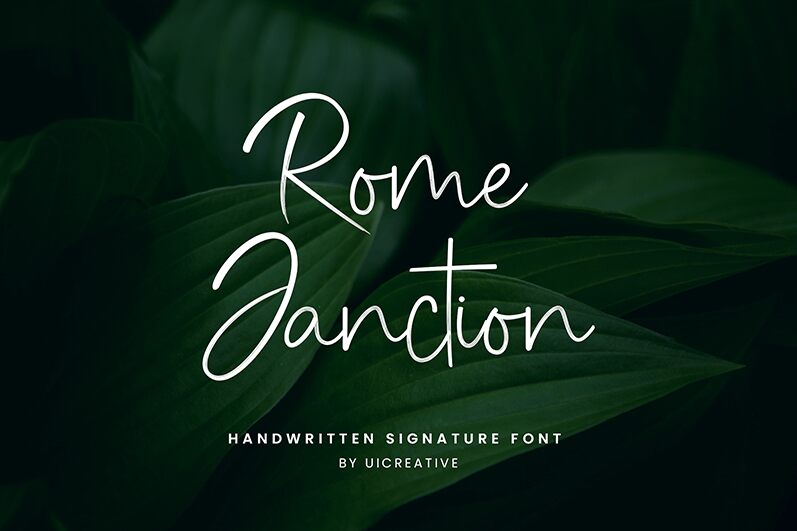
RomeJanction
RomeJanction by UI Creative captivates with its effortlessly elegant, handwritten signature style. Its organic strokes exude a personalized touch, highlighting a harmonious balance between refined sophistication and warm, inviting aesthetics. The fluidity and grace of each character make this font particularly versatile.
Perfect for branding projects, RomeJanction shines in applications such as logos, wedding invitations, and upscale event signage. Its understated charm also enhances social media graphics, blog headers, and personalized stationery.
By combining contemporary flair with timeless script elegance, RomeJanction elevates any design project to new heights of creativity and impact.